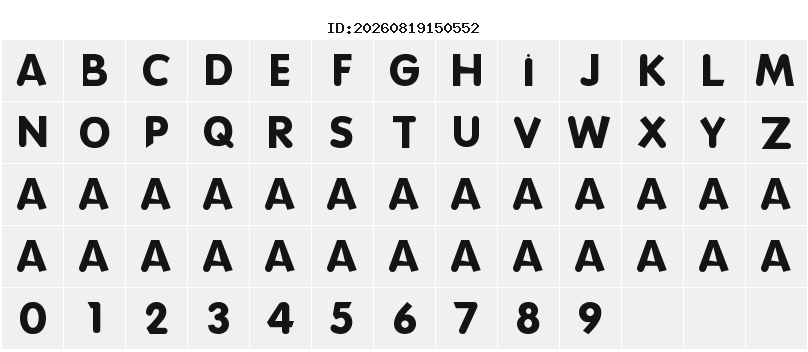
Silly Poo-Poo Preview
About Silly Poo-Poo.ttf
Silly Poo-Poo.ttf is a modern, elegant sans-serif font designed for ultimate readability and visual harmony. Perfect for branding, headlines, web design, and print materials.